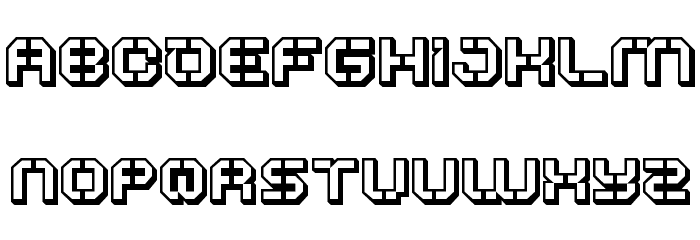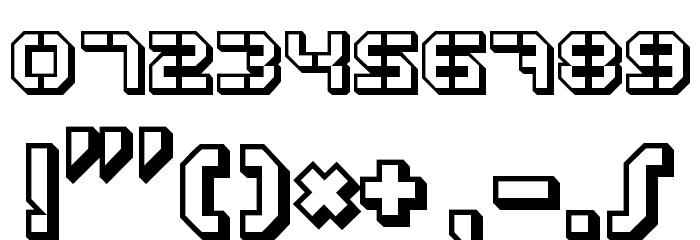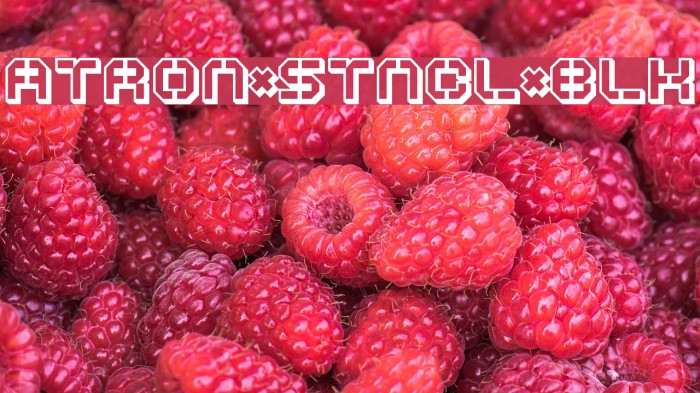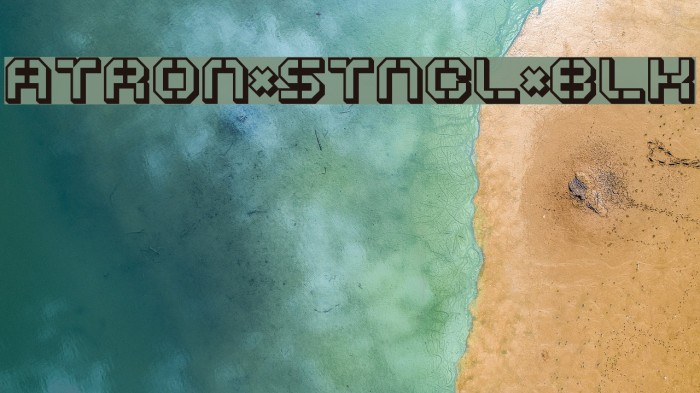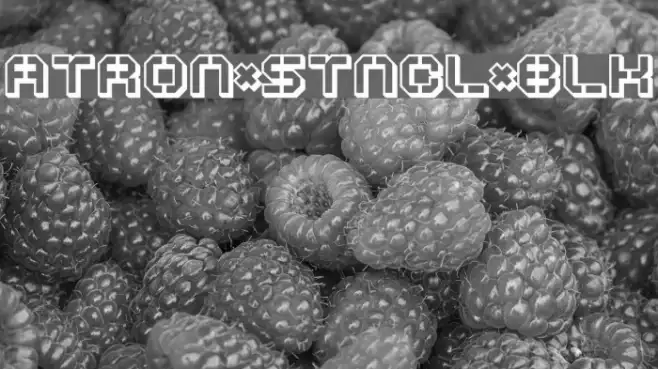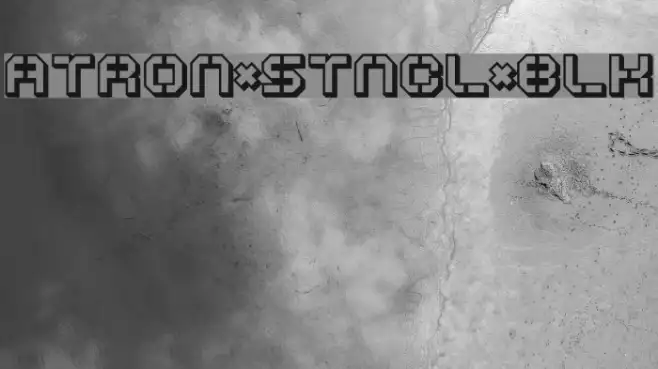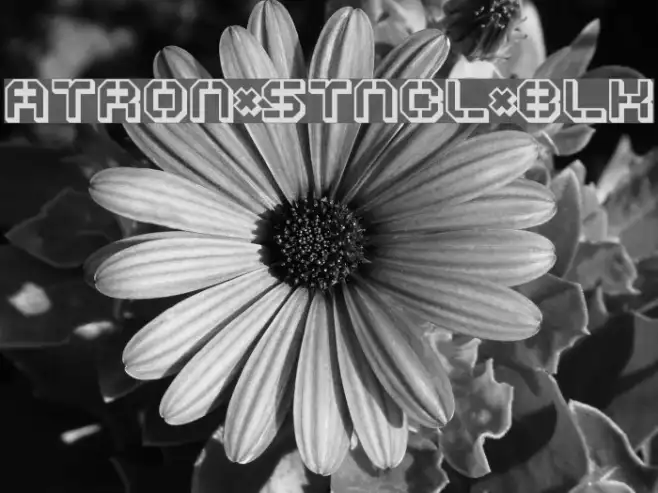
ATRON*STNCL*BLK Font
This font features a bold, geometric stencil design with a futuristic and industrial feel. Each character is constructed with thick, angular lines and open spaces, creating a distinct stencil effect. The uppercase letters are uniform in height, while the numbers and special characters maintain the same bold, structured style. The font's design is reminiscent of digital or technological themes, making it ideal for projects that require a modern, edgy look. Its unique structure ensures high readability while adding a strong visual impact.
A bold, geometric stencil font with a futuristic, industrial style.
- Font: ATRON*STNCL*BLK
- Proposed Projects: Ideal for technology branding, futuristic posters, video game graphics, and industrial-themed designs.